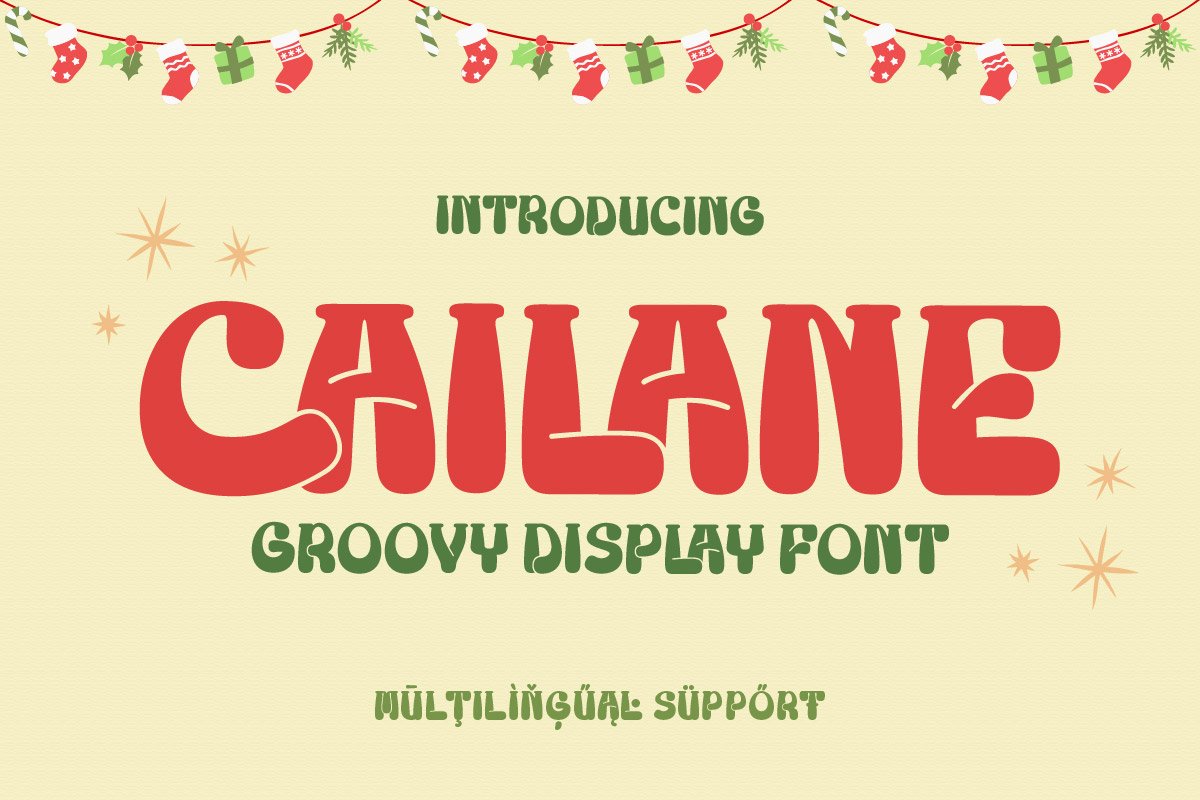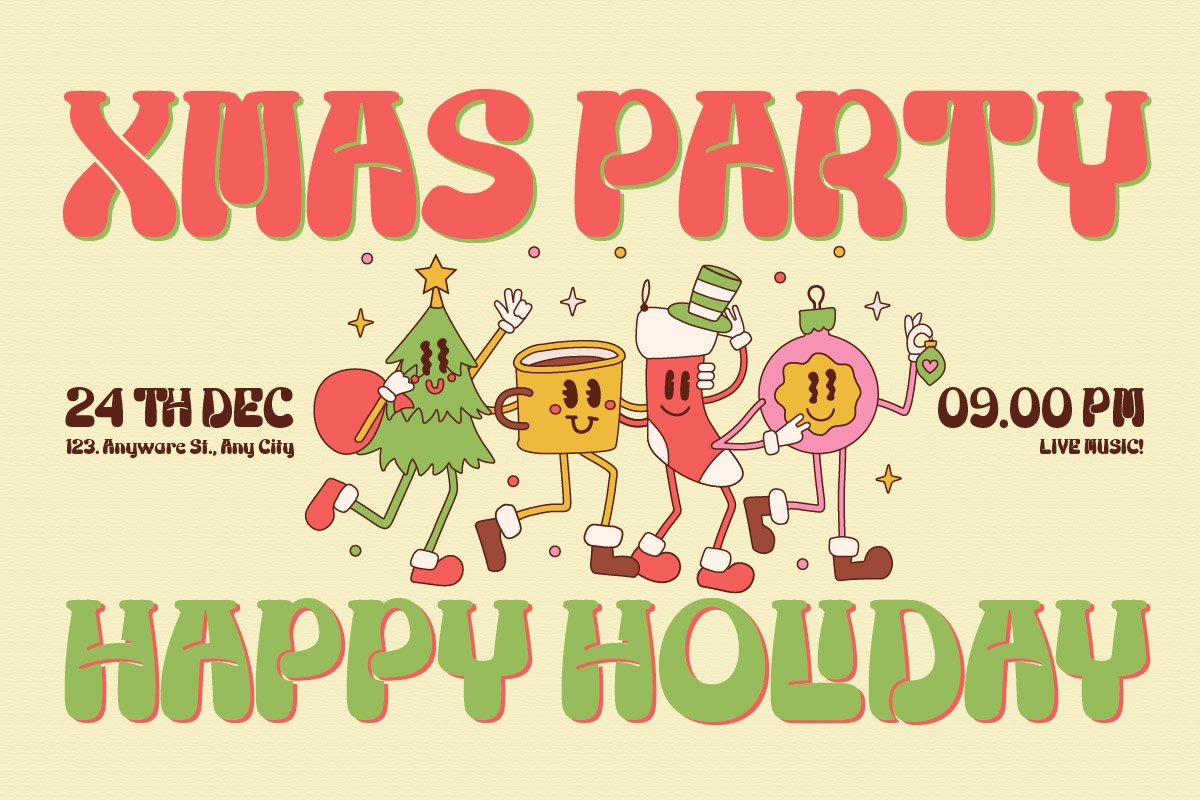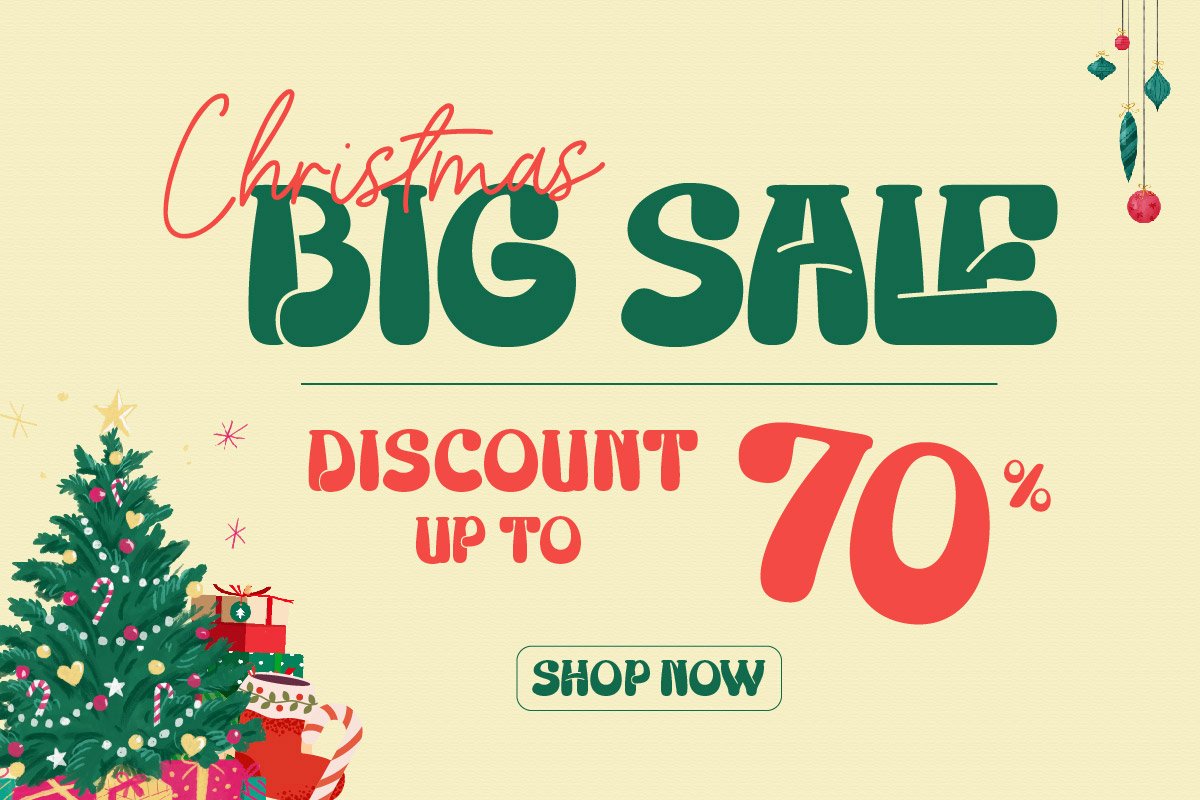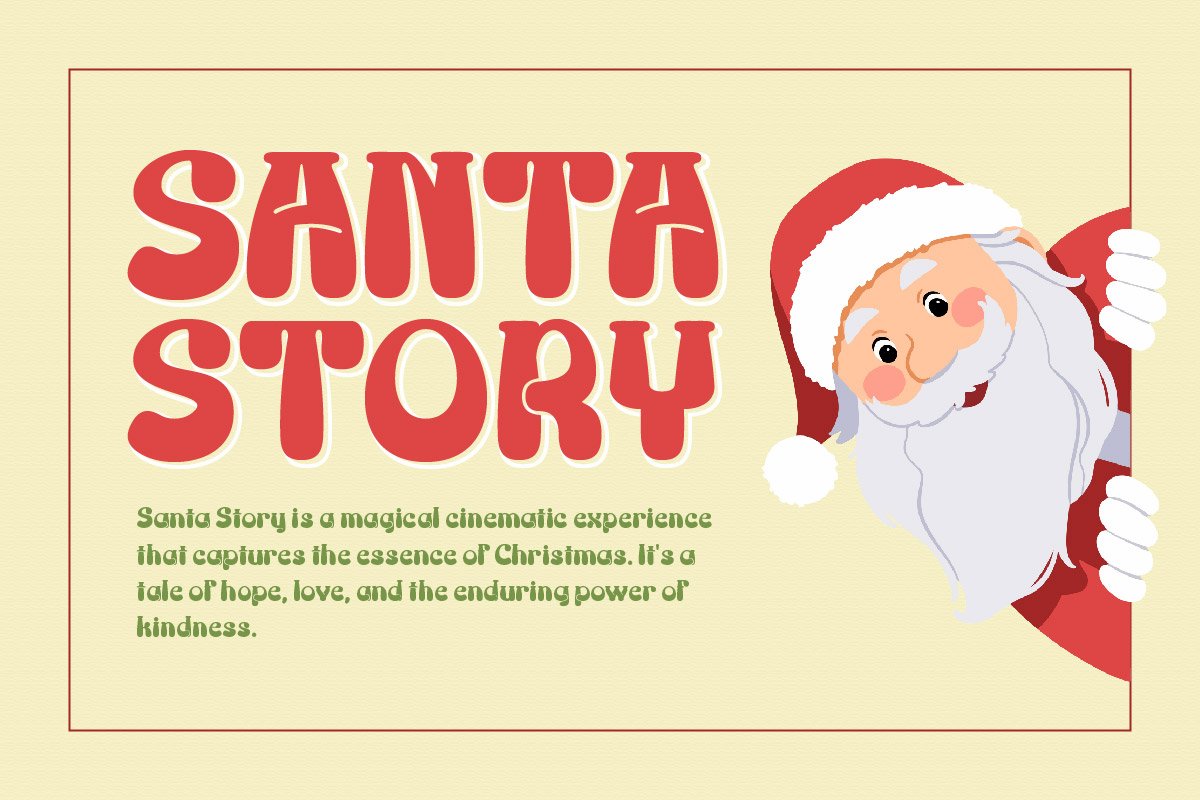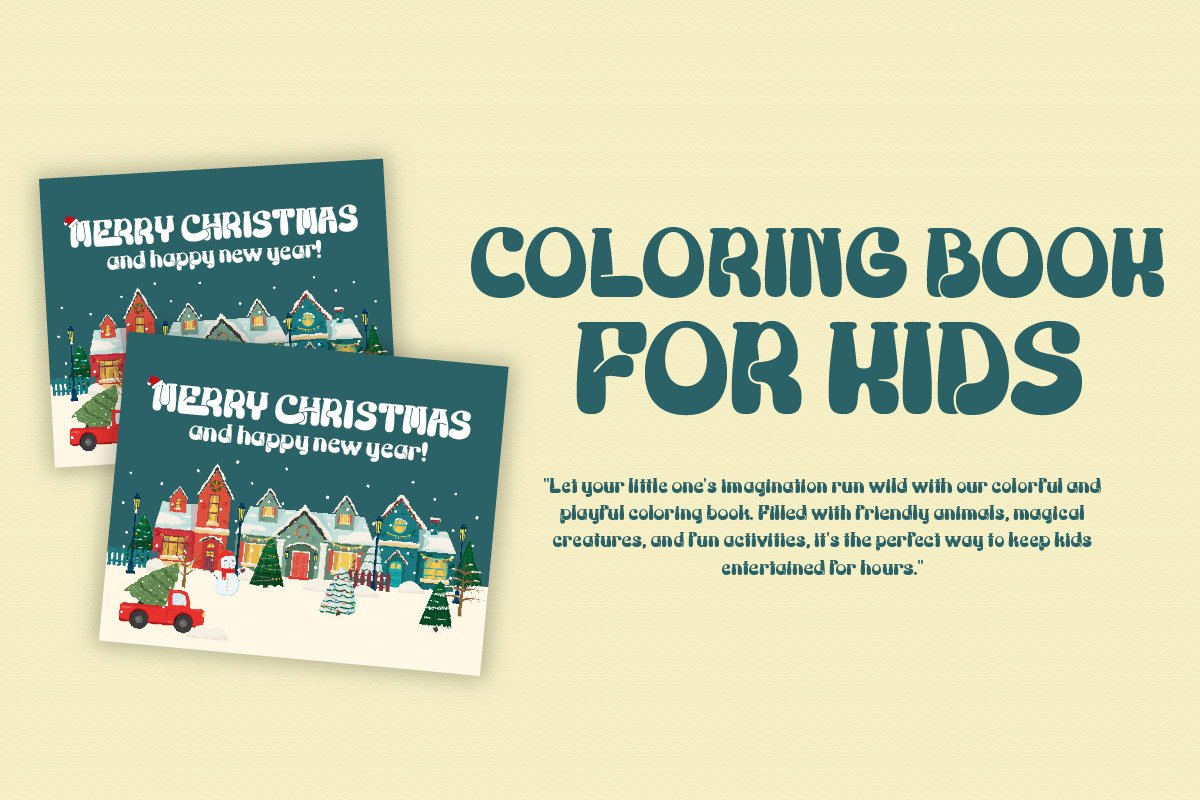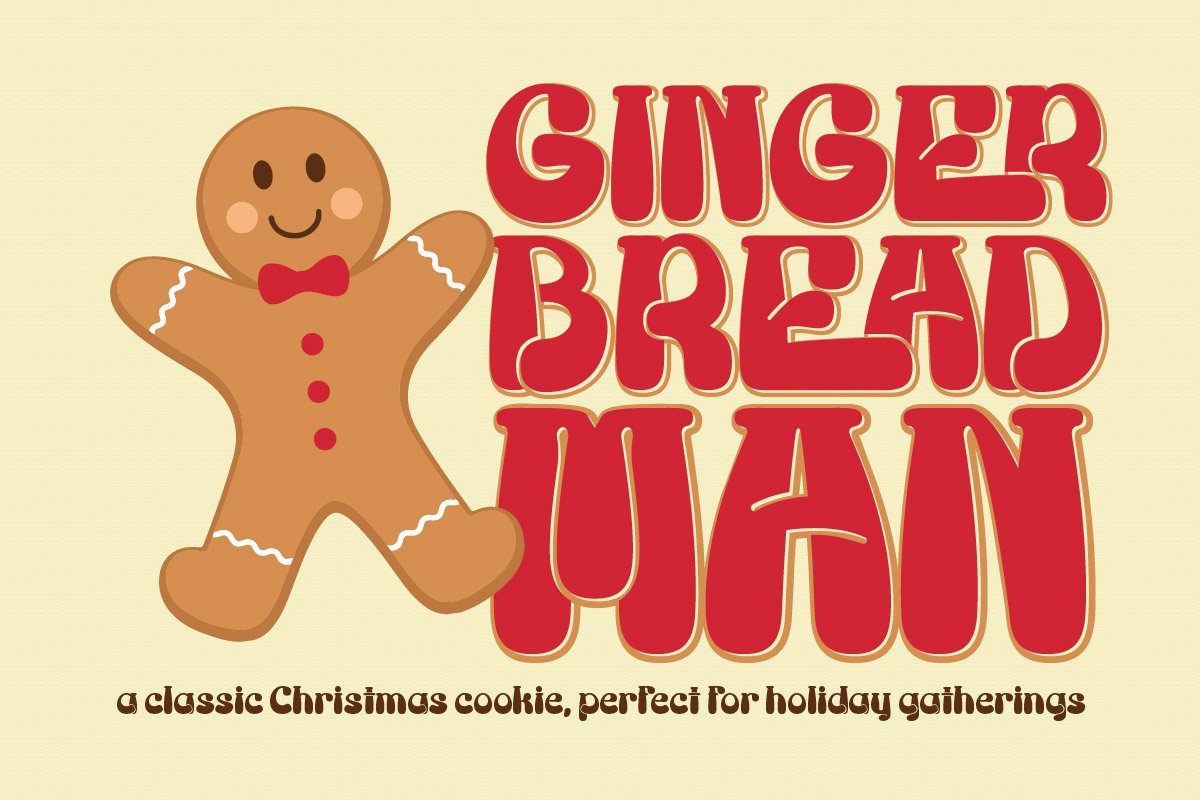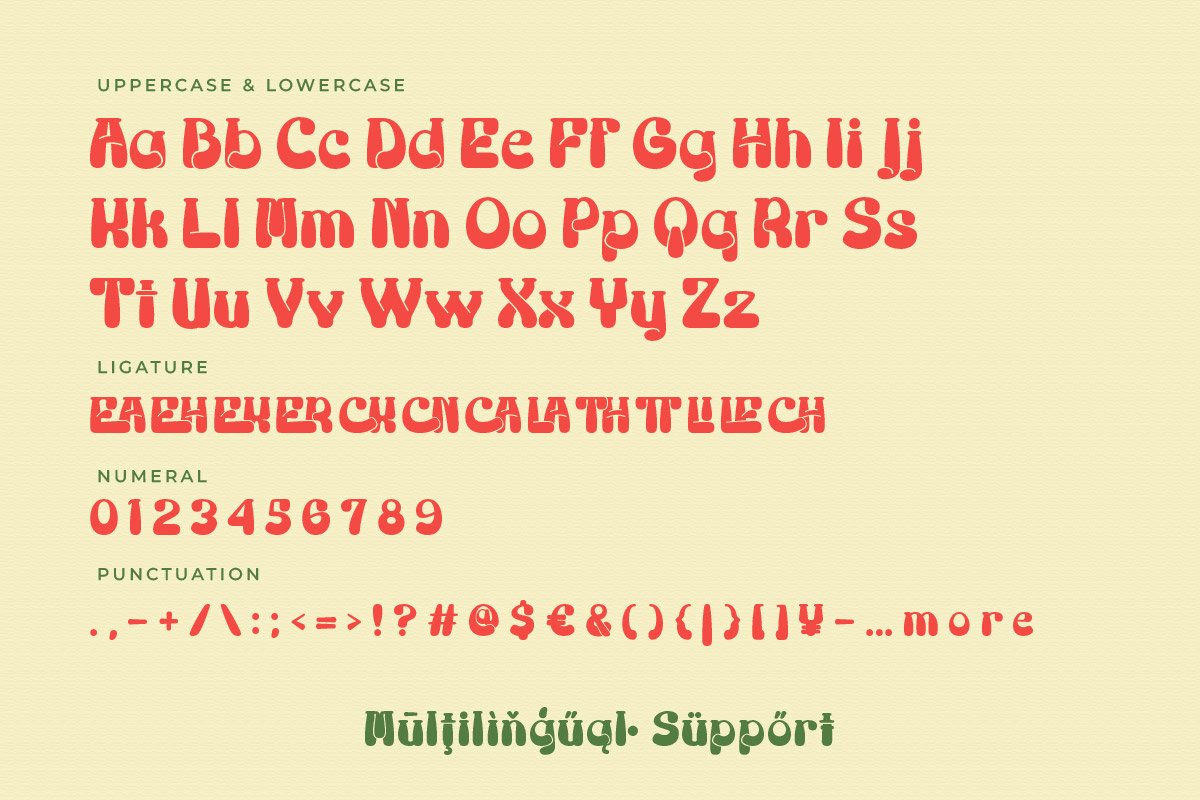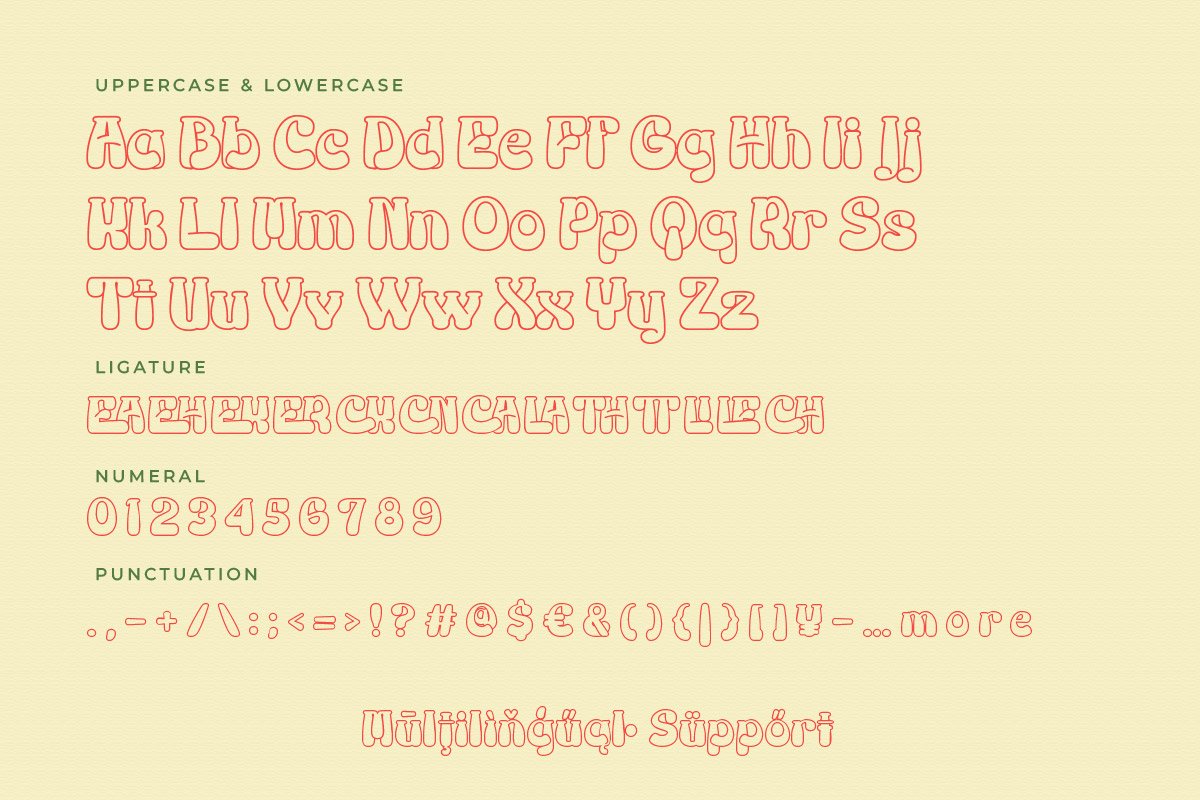
- Cailane – Retro Groovy Display Font
Cailane – Retro Groovy Display Font brings the festive spirit of Christmas into your designs with a nostalgic twist. Inspired by the vibrant and cheerful retro era, this font features groovy shapes and playful curves that evoke warm holiday vibes. Perfect for adding a joyful and charming touch, Cailane is your go-to font for holiday cards, festive banners, creative packaging, and seasonal merchandise.
The font’s bold yet friendly appearance is designed to stand out, making every letter feel like a celebration of joy. Cailane’s versatility ensures it fits effortlessly across various holiday projects, from whimsical headlines to cozy typographic compositions. Whether it’s a winter wonderland poster or a Christmas gift tag, this font wraps your message in delightful seasonal cheer.
Cailane doesn’t just look festive – it feels it, too. Its retro groovy style bridges the past and present, making it ideal for designs that aim to be memorable and full of character. Unleash the Christmas magic with Cailane, where every stroke feels like a sprinkle of holiday joy.